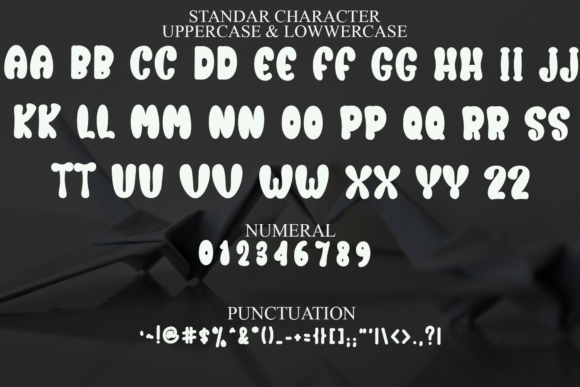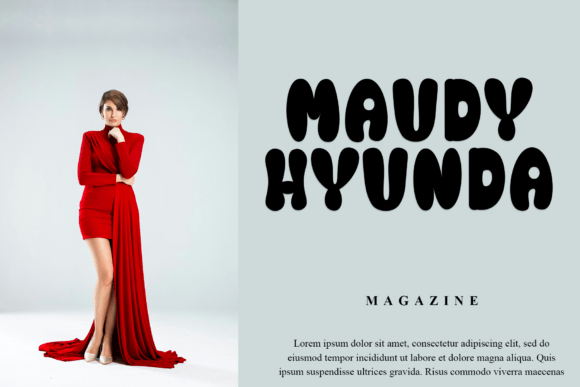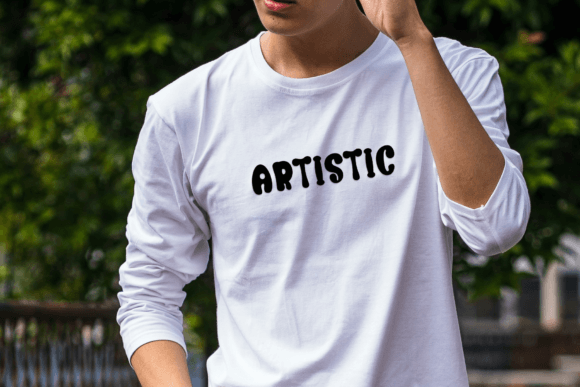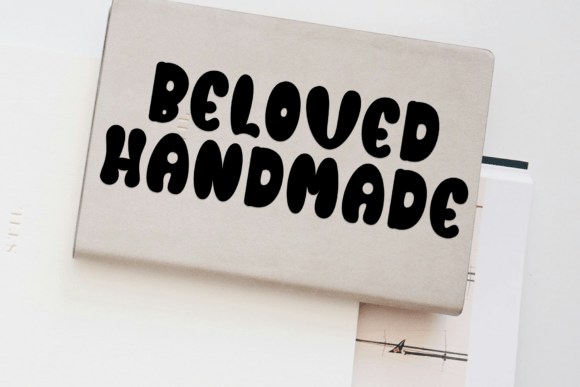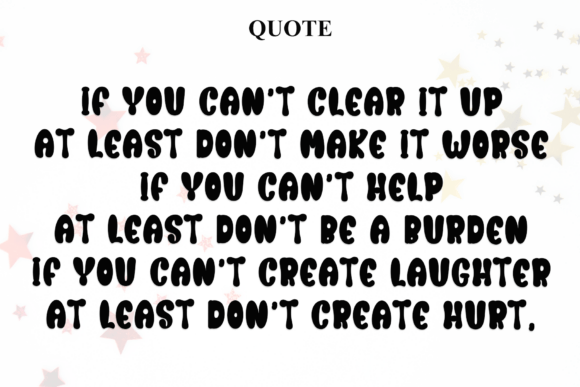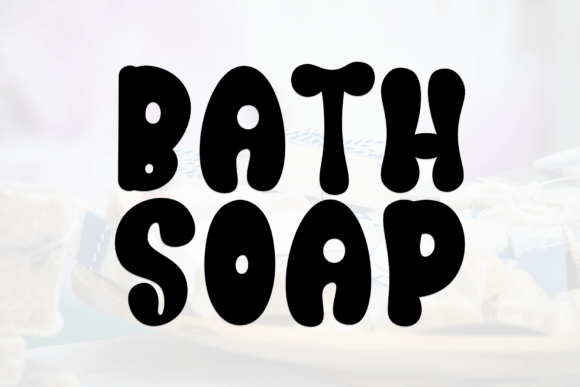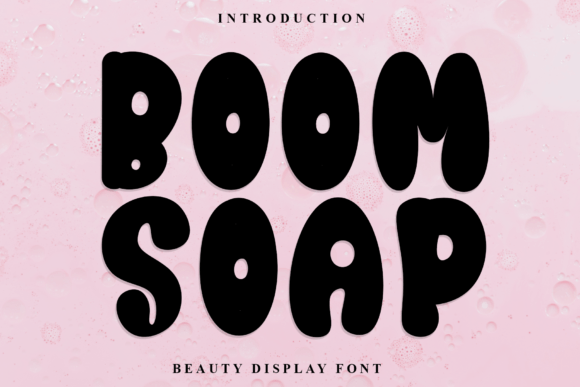
Introducing Boom Soap Font: The Fun, Bold, and Bubbly Typeface You Need!
Are you tired of using the same old fonts for your designs? Look no further! Boom Soap Font is here to shake things up with its playful, bold, and bubbly personality. This fun font is perfect for grabbing attention and adding a splash of energy to your words. Whether you’re a designer, crafter, or DIY enthusiast, Boom Soap Font is sure to become your new go-to typeface.
The Perfect Font for Playful Projects
Boom Soap Font is designed to be fun and lively, making it ideal for projects that require a bit of whimsy. Its bold and bubbly design is sure to grab attention, whether you’re creating posters, logos, or social media graphics. The font’s playful personality is perfect for:
- Posters and flyers for events, promotions, or sales
- Logos and branding for businesses, products, or services
- Social media graphics and posts that need a bit of flair
- DIY projects, such as crafts, baking, or home decor
What Makes Boom Soap Font So Special?
So, what sets Boom Soap Font apart from other fonts? Here are just a few things that make it special:
- Unique and playful design: Boom Soap Font has a one-of-a-kind design that’s sure to stand out from the crowd.
- Bold and bubbly personality: This font is designed to be fun and energetic, making it perfect for projects that need a bit of personality.
- Simple and easy to read: Despite its playful design, Boom Soap Font is simple and easy to read, making it perfect for a wide range of projects.
- Versatile: This font can be used for a wide range of projects, from posters and logos to social media graphics and DIY projects.
How to Use Boom Soap Font in Your Designs
Using Boom Soap Font in your designs is easy! Here are a few tips to get you started:
- Use it as a headline font: Boom Soap Font is perfect for headlines and titles, where its bold and playful design can really shine.
- Pair it with a simple font: For body text, pair Boom Soap Font with a simple font to create a nice contrast.
- Experiment with colors and textures: Boom Soap Font looks great in a variety of colors and textures, so don’t be afraid to get creative!
Why Designers and Crafters Love Boom Soap Font
Designers and crafters love Boom Soap Font for a variety of reasons. Here are just a few:
- It’s fun and playful: This font is perfect for projects that require a bit of whimsy and personality.
- It’s versatile: Boom Soap Font can be used for a wide range of projects, from posters and logos to social media graphics and DIY projects.
- It’s easy to use: This font is simple and easy to read, making it perfect for designers and crafters of all skill levels.
In conclusion, Boom Soap Font is a fun, bold, and bubbly typeface that’s perfect for designers and crafters who want to add a splash of energy to their words. Its playful design makes it great for posters, logos, and cheerful projects, and its simple and lively personality makes it easy to use and versatile. Whether you’re a seasoned designer or a DIY enthusiast, Boom Soap Font is sure to become your new go-to font.